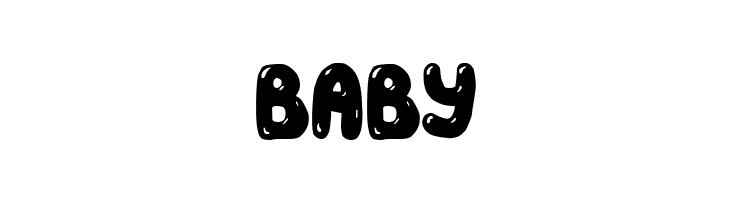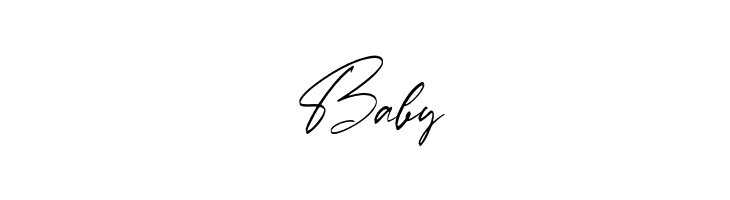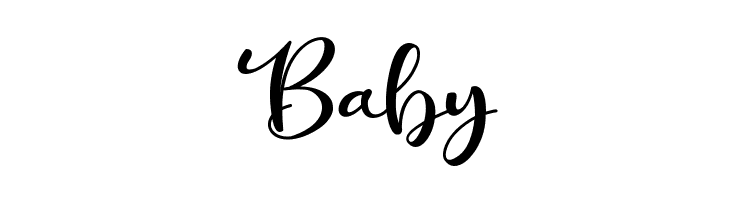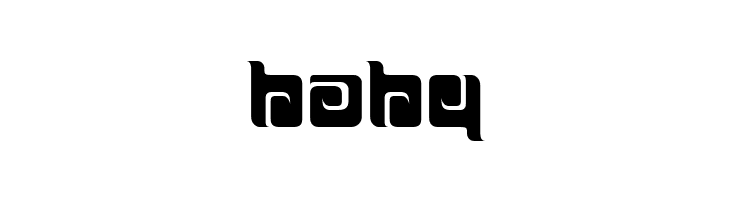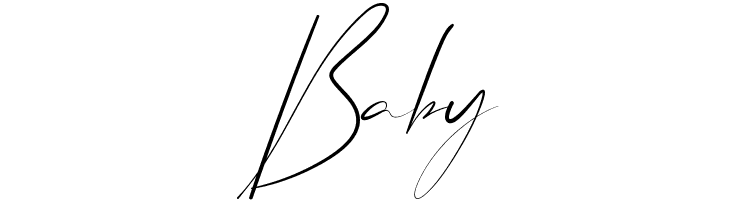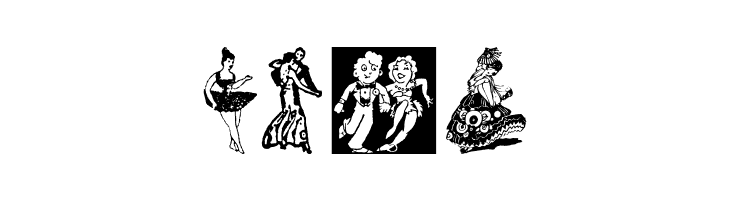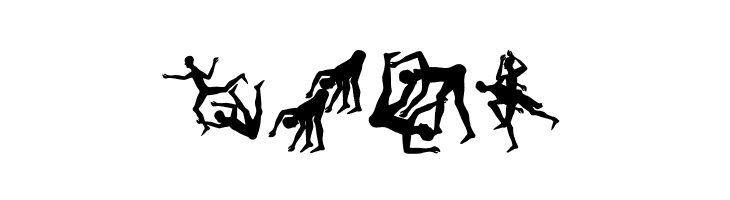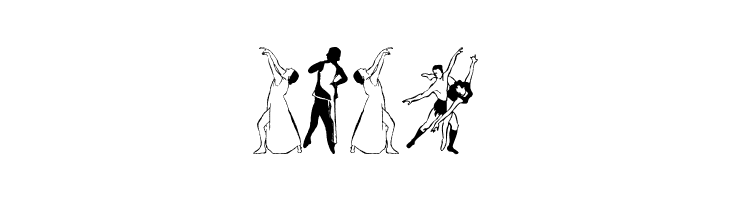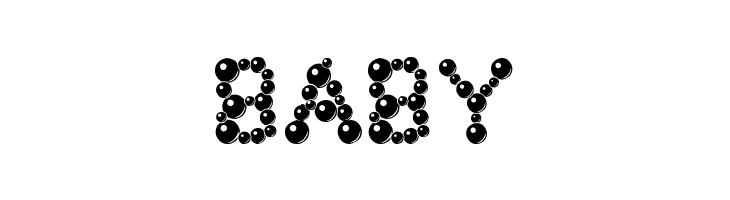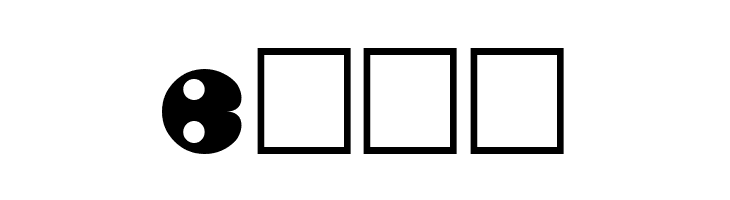
A bold, backslanted font with high contrast and tight spacing, perfect for dynamic designs.
A bold, italic font with a dynamic slant and tight spacing, perfect for modern designs.
A dynamic, ultra-backslanted font with elongated, narrow characters.
A bold, ultra-italicized font with a dynamic and futuristic style.
A playful, ball-bearing inspired decorative font with bold, rounded characters.
An elegant script font with flowing, ornate characters and graceful flourishes.
An elegant, cursive handwritten font with fluid, interconnected strokes.
A graceful, high-contrast handwritten script with long, sweeping lines.
Illustrative, dance-themed decorative font with vintage flair.
A graceful script font with flowing, cursive letters and elegant loops.
A bold, geometric font with circular elements and a modern, playful style.
Silhouette-style decorative set of ballet dancers and shoes.
Font made of ballet dancer silhouettes in different poses.
Expressive font made of dancing human silhouettes.
Sketch-style font featuring ballet dancer illustrations as characters.
A graceful, cursive script font with flowing, interconnected letters.
An elegant script font with flowing, decorative strokes and graceful flourishes.
A whimsical, handwritten font with a playful and elegant style.
A playful, hand-drawn font with a whimsical and artistic style.
A dynamic, brush-style font with expressive, fluid strokes.
A dynamic and expressive script font with elongated, flowing letterforms and high contrast.
A lively and expressive script font with flowing, interconnected letters.
A casual, handwritten-style font with thin, fluid strokes.
A dynamic, cursive font with bold, sweeping strokes and a lively appearance.
A lively, expressive handwritten font with fluid strokes and elegant flair.
A lively and expressive handwritten script font with dynamic strokes.
A playful, balloon-like font with rounded, uniform strokes.
A playful, balloon-like font with rounded and elongated letterforms.
A playful balloon-themed font with rounded, bubbly characters.
A playful, balloon-like font with rounded, hand-drawn characters.
A playful font with numbers styled as inflated balloons, perfect for festive designs.
A playful, balloon-like font with bold, rounded characters.
A playful, balloon-inspired font with rounded, bold characters.